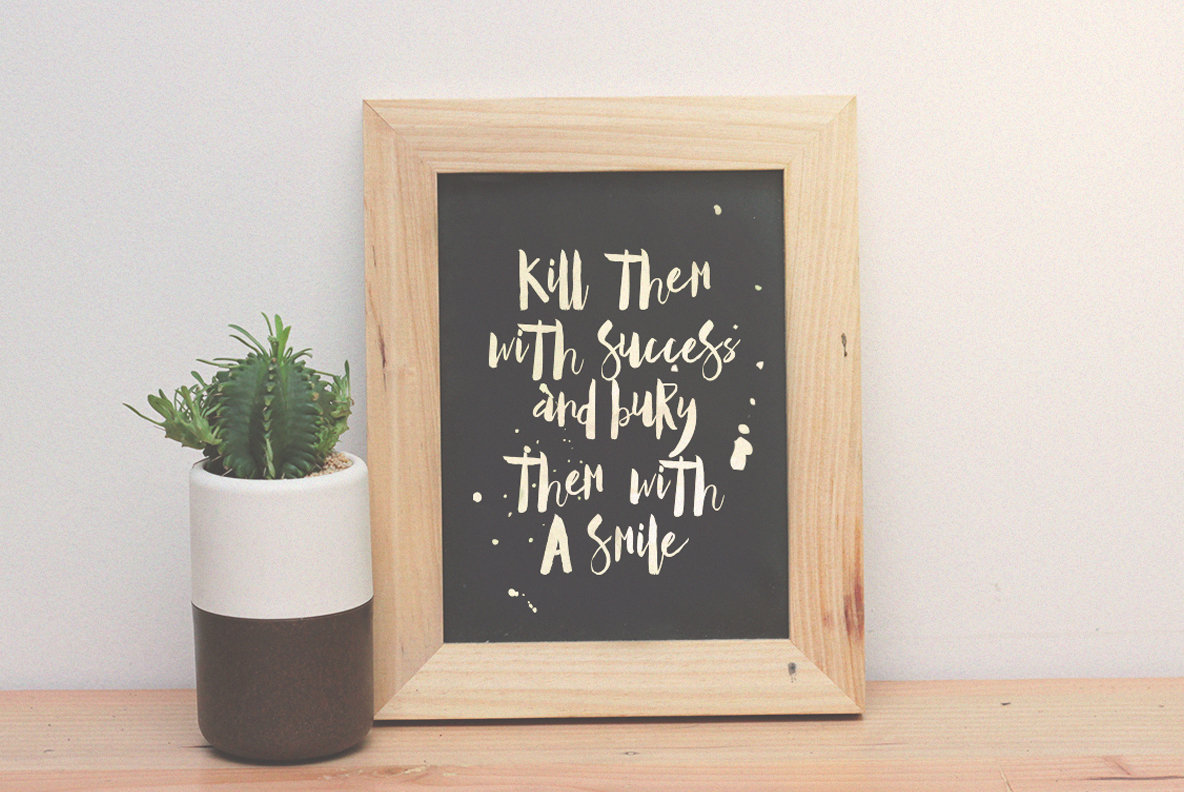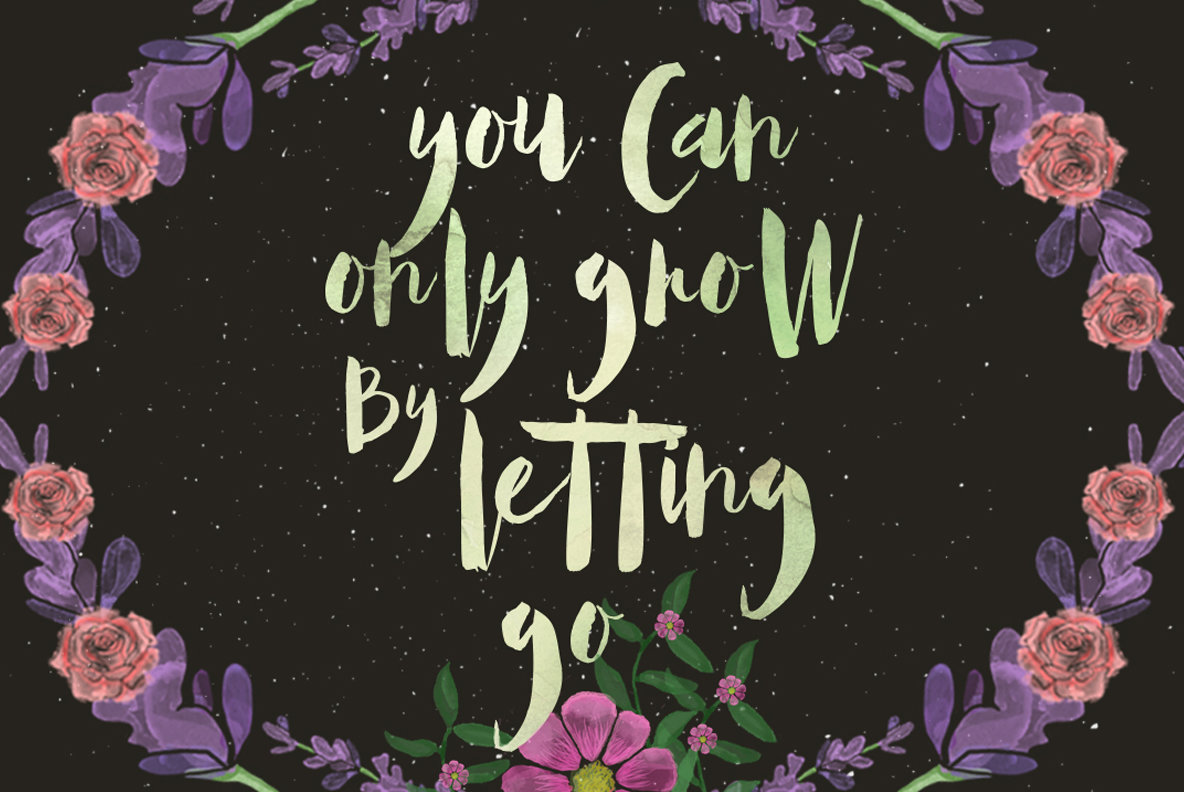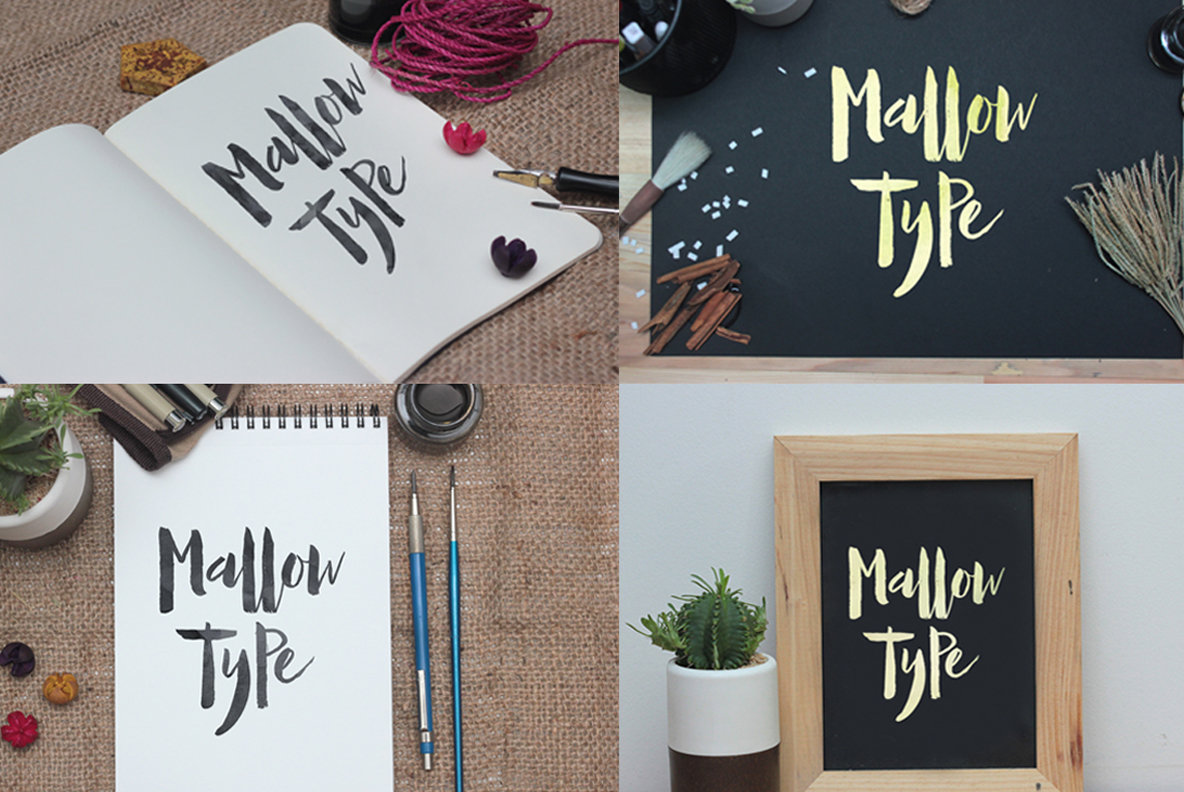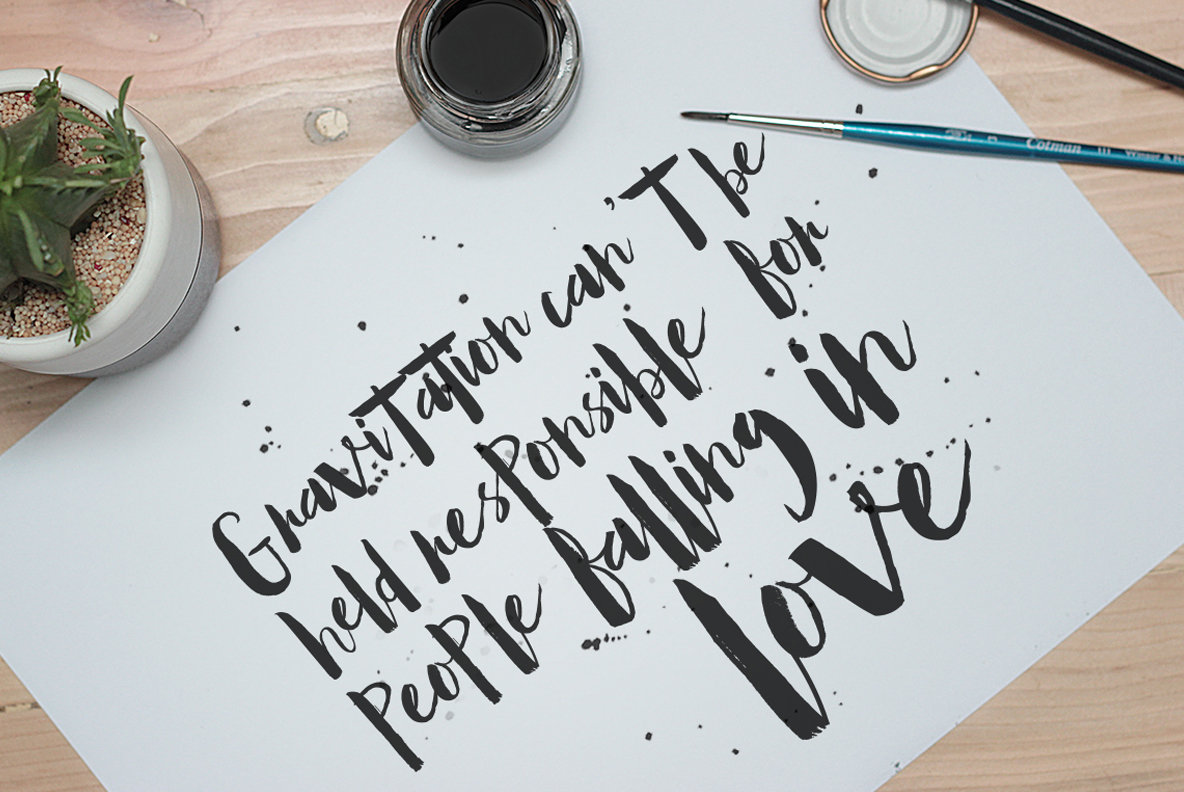
Mallow Typeface 1
Mallow is a playful and modern script design by Maghrib. This download also includes a bonus of 4 brushes, 4 vector files and 18 photos, as shown in the slideshow.